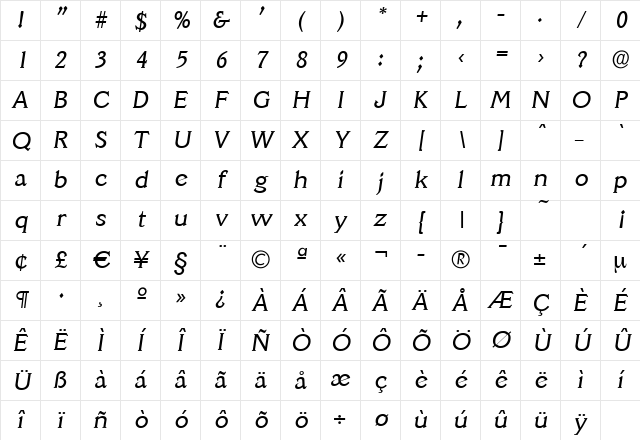
LeroyBecker Italic
Design Context for LeroyBecker
LeroyBecker is a composed and adaptable typeface that performs quietly and consistently across a wide range of design contexts. The slanted form adds forward momentum and visual energy.
Pro Tip: Use LeroyBecker for emphasis, pull quotes, and subheadings where its slanted energy can add rhythm to the layout.